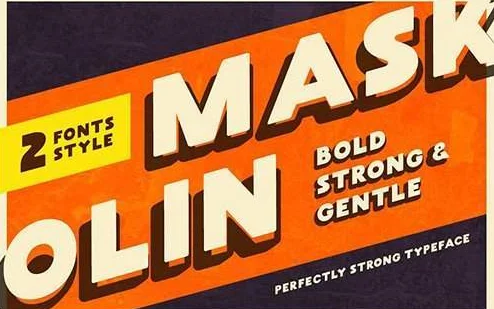
Maskoolin Font
Maskoolin Font is perfect for masculine lifestyle branding, men's grooming products, rugged outdoor gear logos, strong fitness center signage, bold automotive advertising, masculine fashion labels, powerful sports team graphics, robust construction company materials, confident business presentations, and authoritative corporate communications.
Maskoolin Font is exciting because it embodies masculine strength and confident authority through bold, assertive letterforms that convey power, reliability, and masculine sophistication with commanding presence. This powerfully designed typeface combines traditional masculine aesthetics with contemporary functionality, making it perfect for brands that want to communicate strength, confidence, and masculine appeal that resonates with male audiences seeking authentic masculine experiences.
The Maskoolin Font family includes strong weights with masculine-inspired character styling, featuring bold design elements and confident decorative variations. The font showcases powerful design details, strength-optimized proportions, and masculine character characteristics that create a comprehensive typographic system for male-focused and authority-driven brand applications.
Maskoolin Font Free Download offers designers access to premium masculine typography that brings authentic strong character to contemporary male-oriented design projects. This expertly crafted typeface has been developed to capture the essence of masculine confidence and strength while ensuring optimal performance in male-targeted marketing applications. The font's powerful character and masculine appeal make it ideal for men's brands and male-focused service providers.
The masculine sophistication of Maskoolin Font makes it an invaluable tool for men's grooming companies, fitness brands, and male-focused service providers that need typography capable of communicating masculine strength and confident authority. The font's bold character helps establish connections with male audiences seeking authentic masculine products, confident services, and powerful brand experiences that align with traditional masculine values.
Men's fashion brands, fitness centers, and masculine lifestyle companies consistently choose Maskoolin Font for its ability to convey masculine confidence and authoritative sophistication through typography. The font excels in applications where establishing masculine credibility and strong appeal are essential to brand positioning, making it particularly effective for men's products, fitness services, and masculine lifestyle brands targeting confident male consumers.
This font's comprehensive character set includes masculine-styled letterforms, strong numerals, bold punctuation marks, and powerful symbols that support authentic masculine typography composition. The consistent confident styling maintains the masculine strength theme throughout all characters while ensuring professional readability across all male-focused and authority design projects requiring Maskoolin Font Free Download functionality.